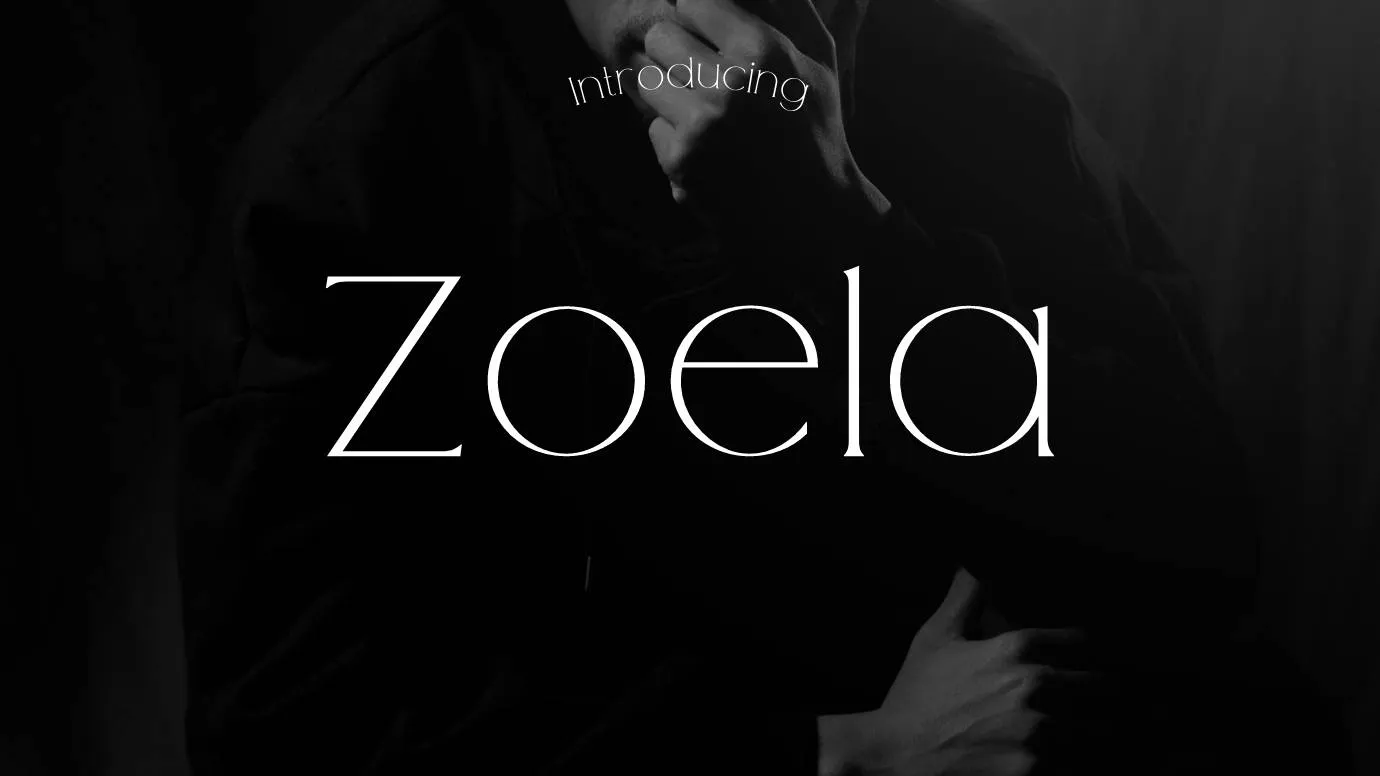
Zoela Font Family is a famous serif look font that comes with thin and attractive ligatures. This serif font has stylistic alternates and eye-catching glimpses. Dxsign is the main designer of this classic font family.
This gorgeous font family has a stylish serif look and modern glyphs along with 1024 units per em. This serif texture has many carefully crafted features that make your design more luxurious.
Zoela Font
TypeSerif